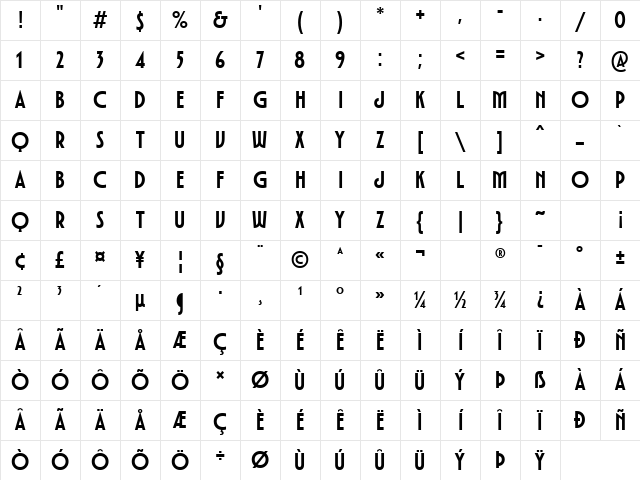
TT Modernoir Trial DemiBold
Style: DemiBold
Designer: Designed by Toma Streltsova, Antonina Zhulkova. Technical designers Ivan Gladkikh, Yuriy Nakonechnyi, Stanislav Tikhonov, Elizabeth Ostrovskaya, Victor Rubenko.
Design Context for TT Modernoir Trial
TT Modernoir Trial is a composed and adaptable typeface that performs quietly and consistently across a wide range of design contexts. Its bold stroke weight gives it real presence on the page.